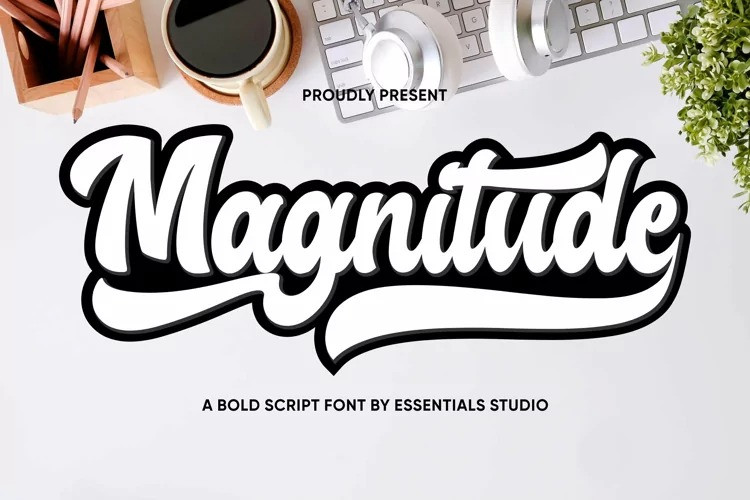
Magnitude Font
Magnitude Font Is a Bold Script Fonts. Magnitude is perfect for product packaging, branding project, megazine, social media, wedding, or just used to express words above the background.